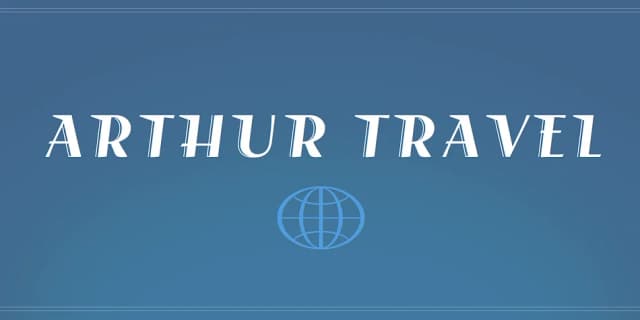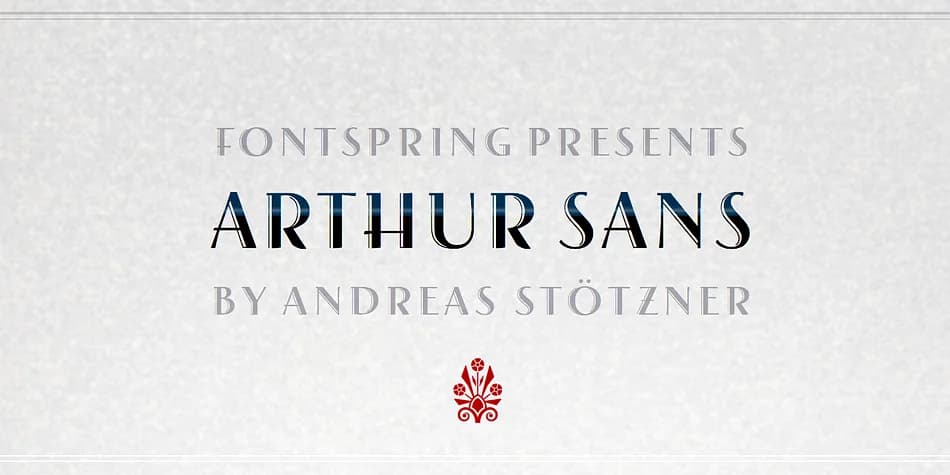
Arthur Sans by Andreas Stötzner is a geometric Art Deco typeface that brings authentic vintage character to designs demanding period-specific refinement. It works exceptionally well for luxury wine labels, vintage-inspired theater programs, high-end restaurant menus, and 1920s-style wedding stationery where that particular aesthetic carries genuine meaning. The form feels both refined and distinctive without overreaching for attention, and each character sits solidly with the proportions you see in classic 1920s and 30s typography.
Unlike many decorative typefaces that function only at large display sizes, Arthur Sans holds up well at smaller scales, making it flexible across different applications. The geometric construction gives it a timeless quality, working equally well for contemporary designs with vintage inspiration or historically accurate Art Deco projects. You get five weights with matching italics, supported across a comprehensive Euro-Latin character set for European language typesetting. The regular weight also includes 70 companion ornamental characters designed to harmonize with the main typeface, extending the design language so you can build a cohesive visual system from a single family.
Arthur Sans Font is a decorative font that shines as a display or heading face. Pair it with a clean sans-serif or serif font for body text — the contrast creates a clear hierarchy while the two styles stay balanced and easy to read.